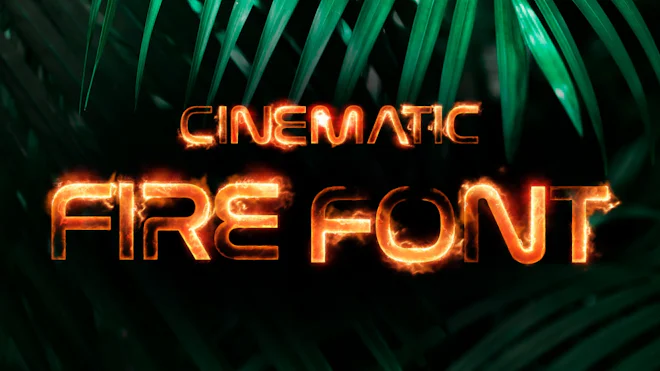
This stock motion graphics video pack includes 38 different clips of Upper-Case Fire letters and symbols on a transparent alpha channel. Pack includes 26 letters and 10 symbols.